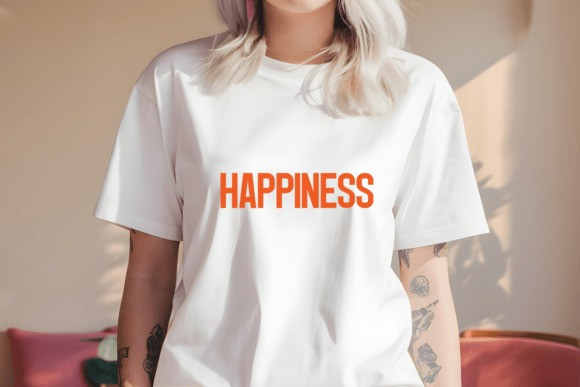
Funny Couples Font
Funny Couples Font is a joyful and vibrant retro condensed sans serif typeface guaranteed to inject humor and personality into any project. With its bold, thick characters and playful vintage style, this font is the perfect blend of nostalgia and contemporary fun. It is specifically designed to bring a smile to your audience, making it incredibly popular for personalized and humorous merchandise.
This font is an absolute powerhouse for Print on Demand (POD) sellers targeting relationship, anniversary, wedding, or humorous niche markets. Its strong, clean structure ensures that funny quotes and clever sayings print clearly and stand out on T-shirts, mugs, cards, and personalized gifts. Graphic designers will find Funny Couples ideal for creating engaging social media content, vintage-inspired advertising, and impactful event posters. Furthermore, crafters utilizing machines like Cricut and Silhouette will love how easy its solid forms are to cut and weed, perfect for creating custom decals, matching couple apparel, or home decor.